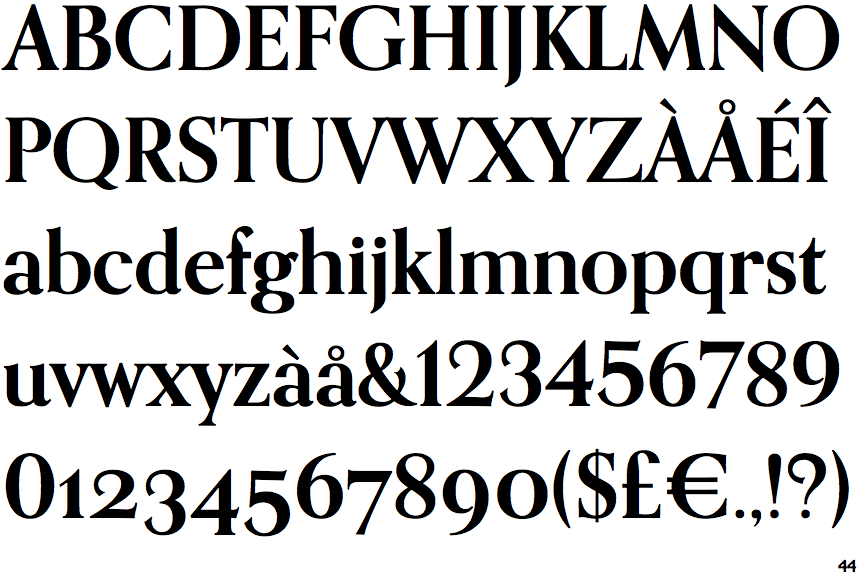
It has become a standard font in packaging and entertainment design. The orpheus pro fonts started out as a straightforward revival of tiemann’s orpheus and euphorion. Walter tiemann, kevin allan king and patrick griffin.